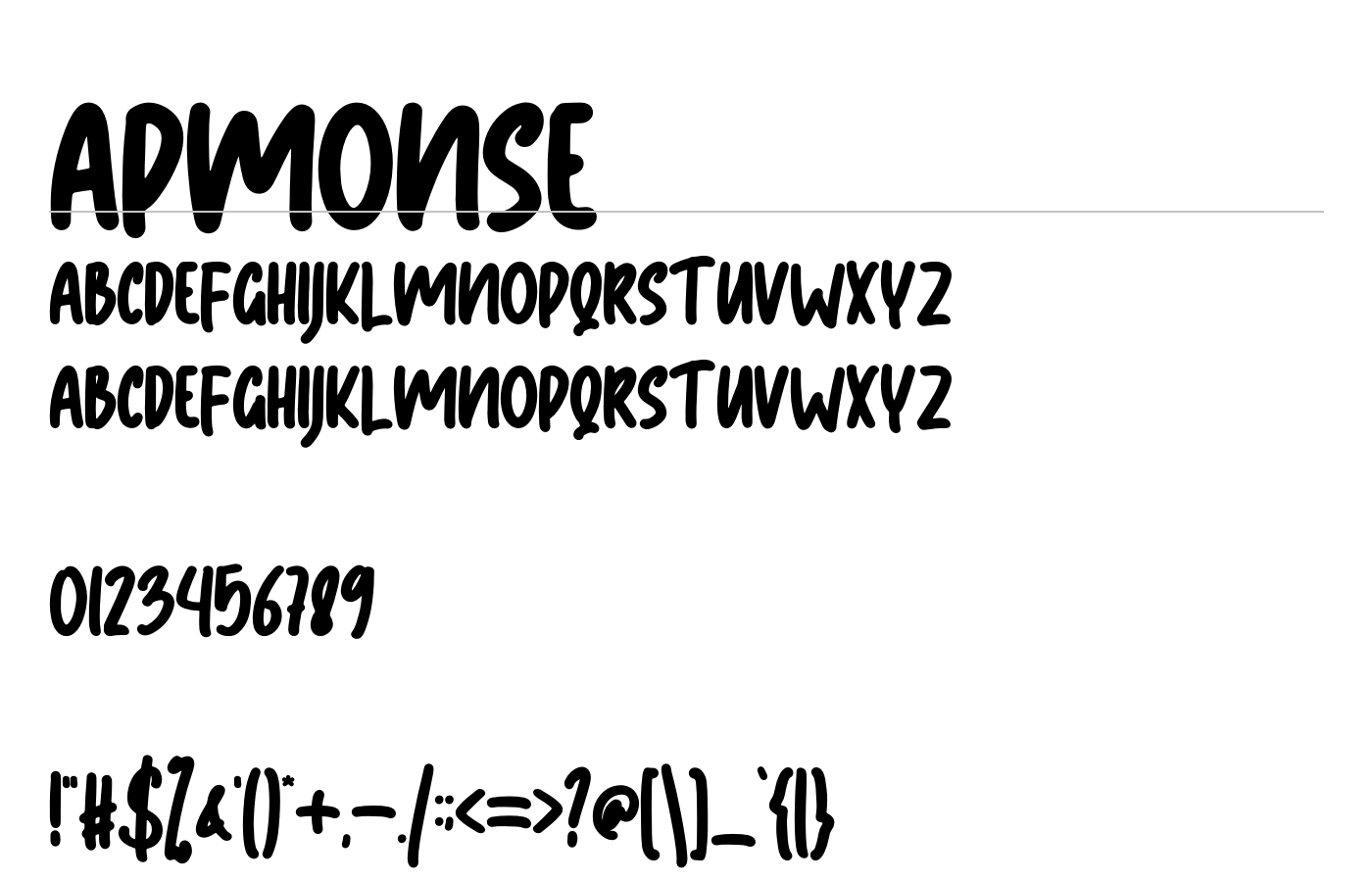
Apmonse is a playful and casual handwritten sans serif font featuring bold, rounded strokes and an inviting, informal style. Its lively letterforms with high x-height and irregular shapes make it ideal for fun, creative projects like children’s books, posters, or playful branding that seeks a friendly, approachable vibe. This font shines in display use where a personal, energetic tone is desired.
Apmonse Font
About Apmonse Font